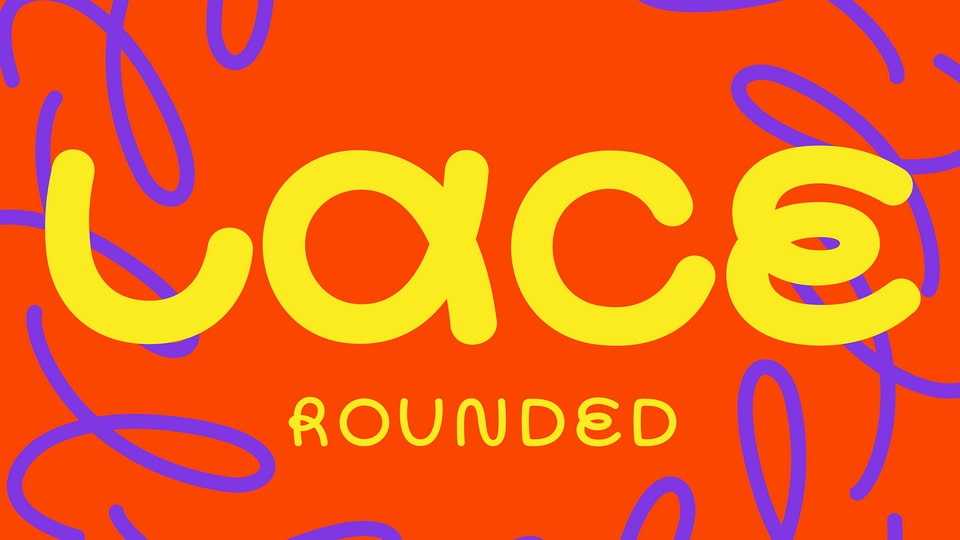
Download Lace Rounded font, a cute bubble typeface best used for fun branding and design projects. This friendly font is perfect for adding a touch of whimsy and lightheartedness.
Designer: Saskia Ketz